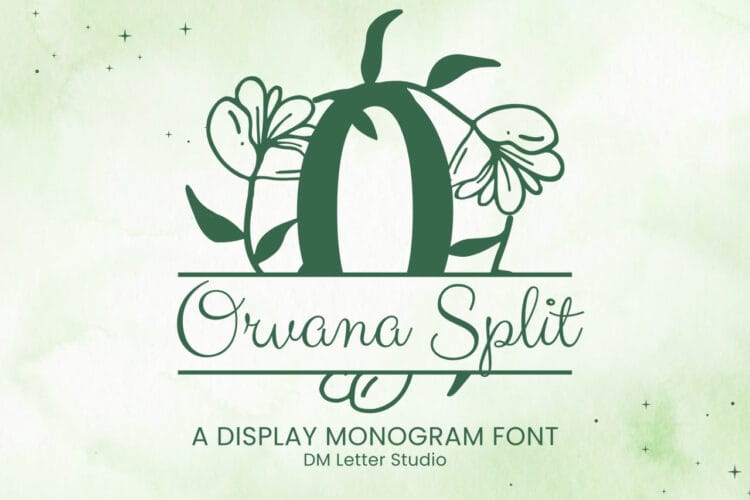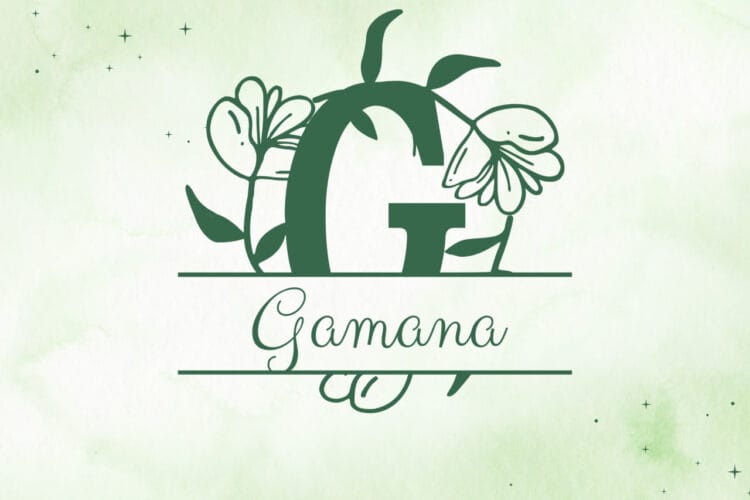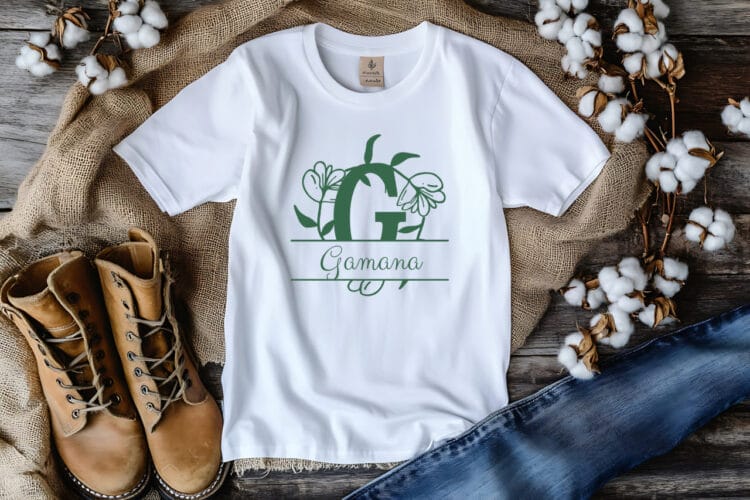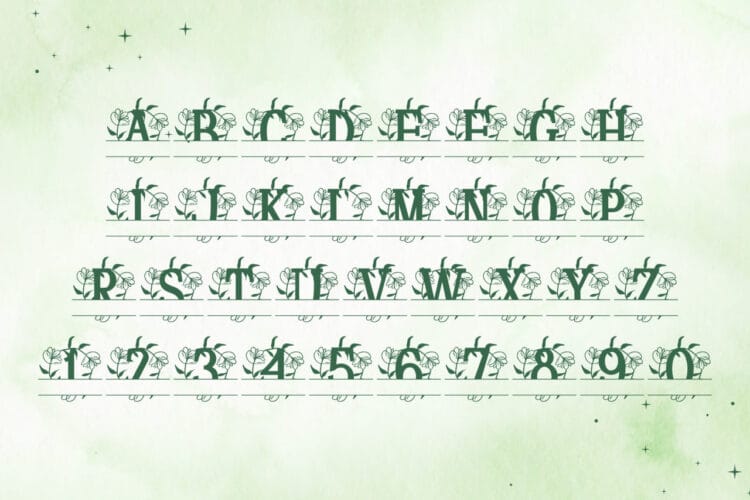
Meet Orvara Split, the Monogram Font
Orvara Split Monogram turns initials into refined botanical emblems with a clean split center for names or dates. The design is inspired by soft leaves and natural balance, giving each monogram a calm, organic, and timeless feel. Letterforms stay clear at any size, so small tags remain readable while larger designs look graceful and composed. Use Orvara Split for wedding suites, nature-inspired branding, stationery, keepsake gifts, and luxury packaging. As a result, your monograms feel personal, elegant, and thoughtfully crafted.
Why Orvara Split Monogram sells
Fast layouts with the Orvara Split Monogram Font
Start with a bold initial and place the name or date in the split center. After that, keep extra text minimal so the botanical form remains the focus. Because Orvara Split holds its shape at small sizes, labels, stickers, cards, and favor tags stay clean and readable. In addition, it pairs beautifully with soft serifs, light scripts, or clean sans serifs for supporting text. Finally, save color palettes like sage and cream, olive and ivory, eucalyptus and linen, or charcoal and soft gold to reuse across collections.
Creative uses and quick wins
Wedding monograms, invitation covers, and ceremony signage
Place cards, table numbers, and favor tags
Logo seals, certificates, and boutique brand marks
Packaging labels for candles, soap, perfume, and gift boxes
Design tips for Orvara Split Monogram Font
Keep the monogram as the hero and use a separate font for any text outside the split area. Also, give it enough breathing room so fine botanical details stay crisp at smaller sizes. For a premium finish, try foil stamping, embossing, or letterpress on thick or textured stock. Finally, export at 300 DPI for print and at 2× size for web so edges remain smooth everywhere.